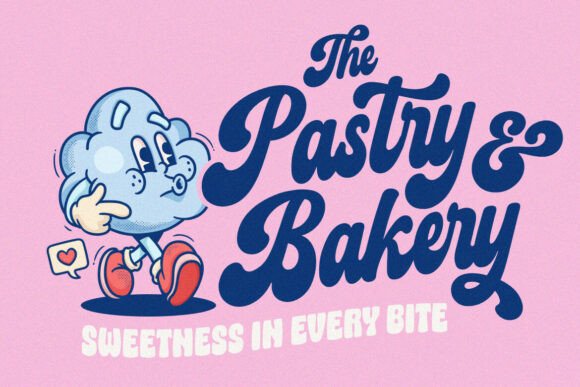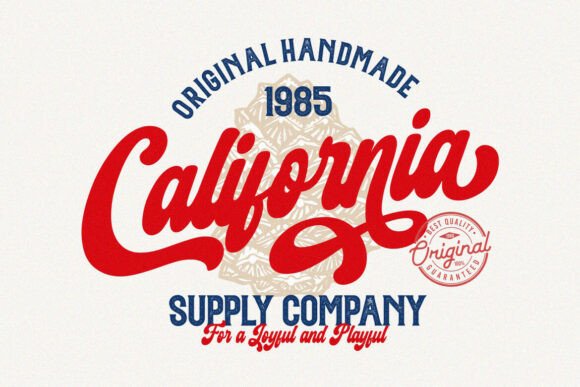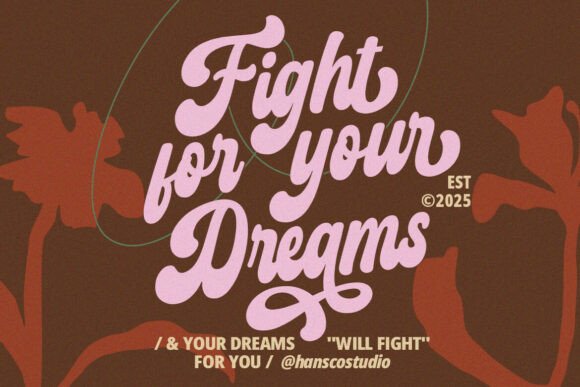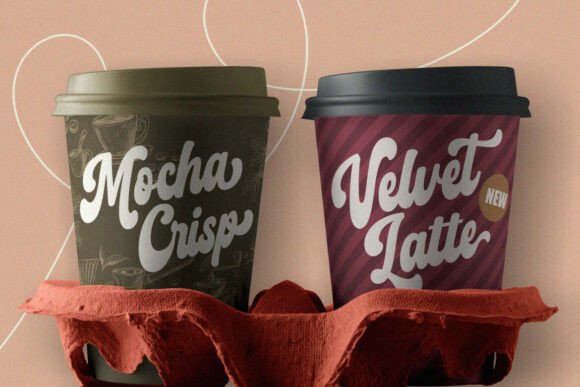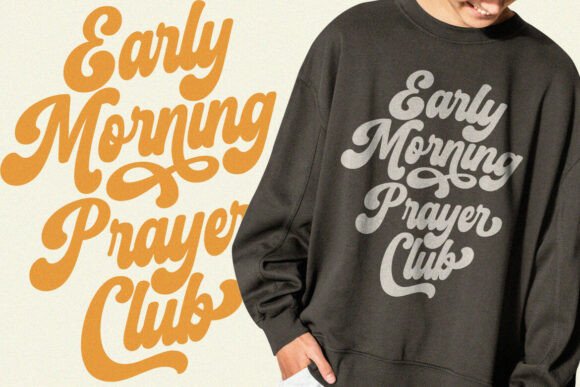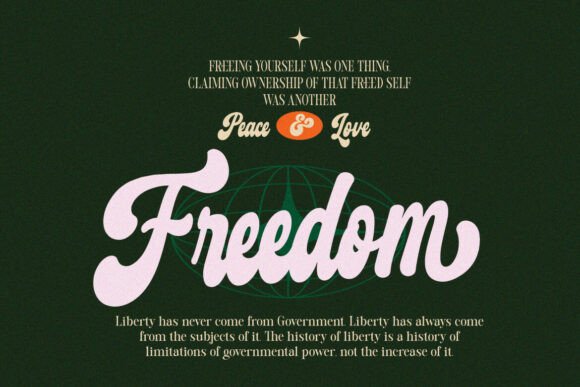
Introduction to Retro Harmony Font
Have you ever stared at a blank canvas, waiting for inspiration to strike? For designers, those moments can be the most thrilling – and intimidating. But what if the perfect design element was just a click away? Enter the Retro Harmony Font, a modern, clean, and cute retro font style that’s about to become your new go-to design resource.
Whether you’re working on a logo, packaging design, or YouTube video title, the Retro Harmony Font is the perfect addition to elevate your creative project. With its unique blend of vintage charm and modern flair, this font is sure to add a special touch to any design idea. And with its transparent background option, you can easily combine it with other design elements to create a cohesive look.
Key Features of Retro Harmony Font
- High-quality, unique font design inspired by the classic aesthetic of the 1950s and 60s, perfect for creative projects and design resources.
- Designed with a distressed, vintage look that adds a touch of nostalgia and whimsy to any design project, making it an excellent choice for creative professionals and hobbyists alike.
- Perfect for use in a variety of design contexts, including logos, posters, social media graphics, and more, due to its versatility and timeless appeal.
Honest Review: Retro Harmony Font
One of the things that works well with the Retro Harmony Font is its versatility. It can be used in a variety of contexts, from digital designs to print materials. I particularly appreciated the fact that it comes with a transparent background, making it easy to integrate into any design.
- ✨ Unique aesthetic that adds a touch of nostalgia to any design
- ✨ Versatile font that can be used in various contexts
However, there are a few limitations to consider. The font may not be suitable for all types of designs, particularly those that require a more modern or minimalist look. Additionally, the font’s quality may vary depending on the resolution and size used.
Overall, I was impressed with the Retro Harmony Font’s potential as a design resource. While it may not be perfect for every project, it’s definitely worth considering for those looking for a unique and high-quality font.
Retro Harmony Font